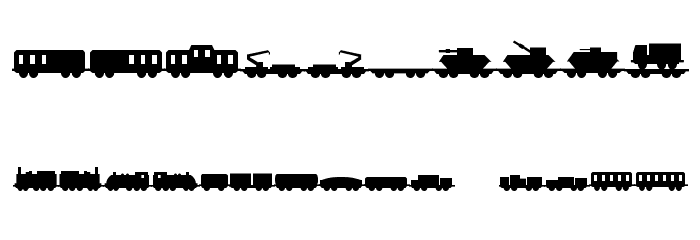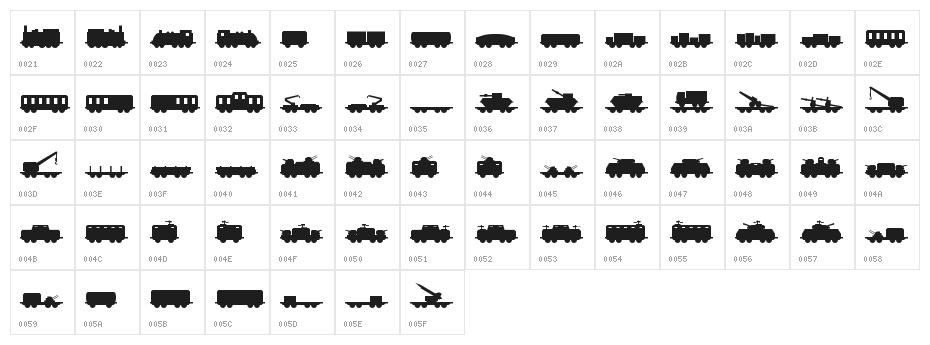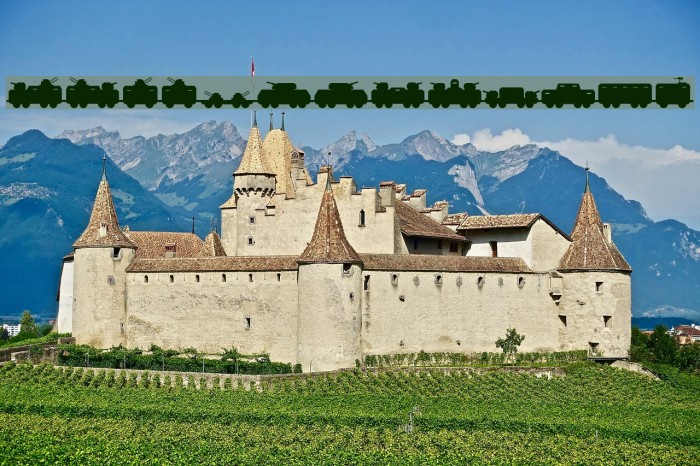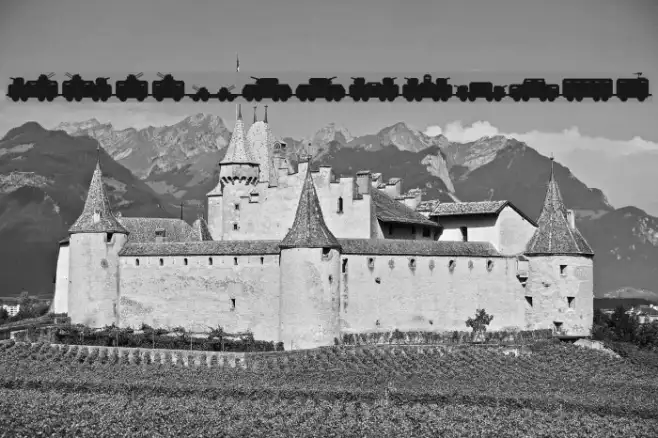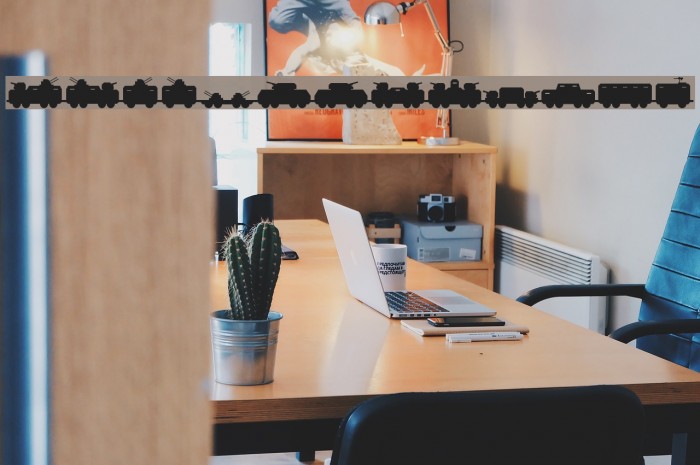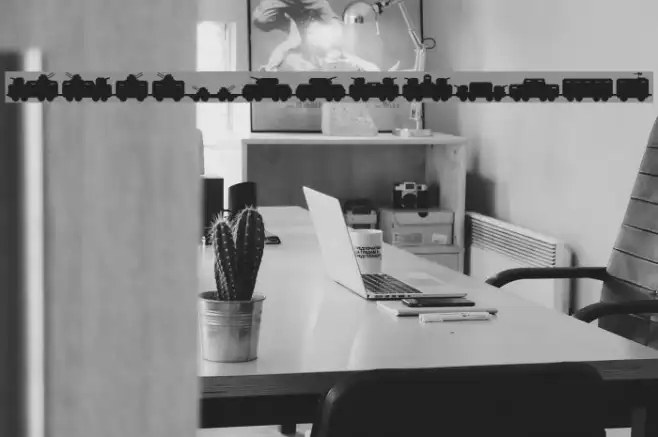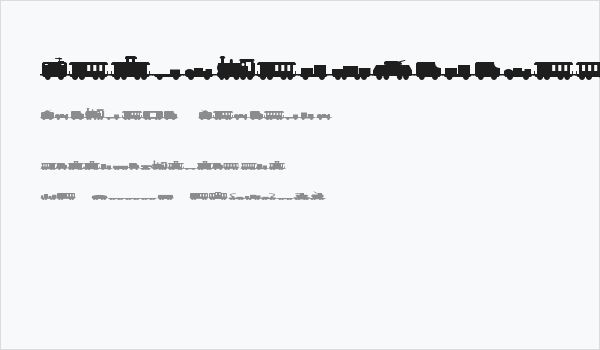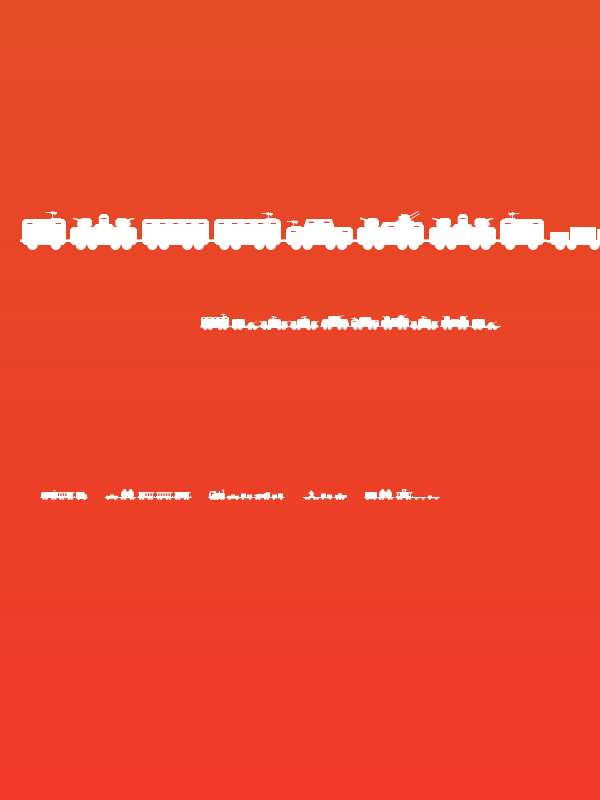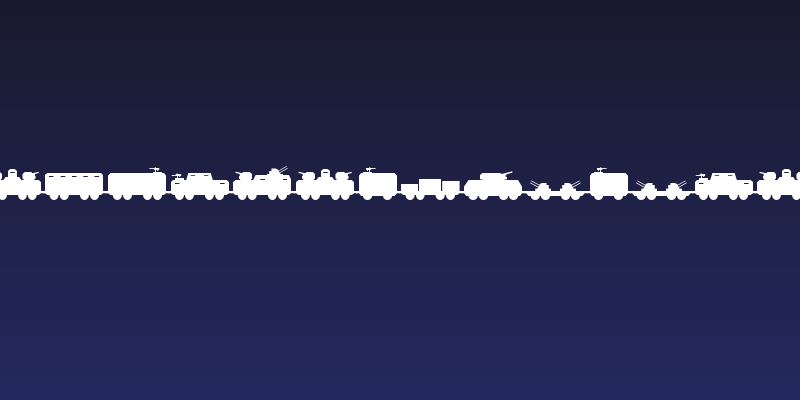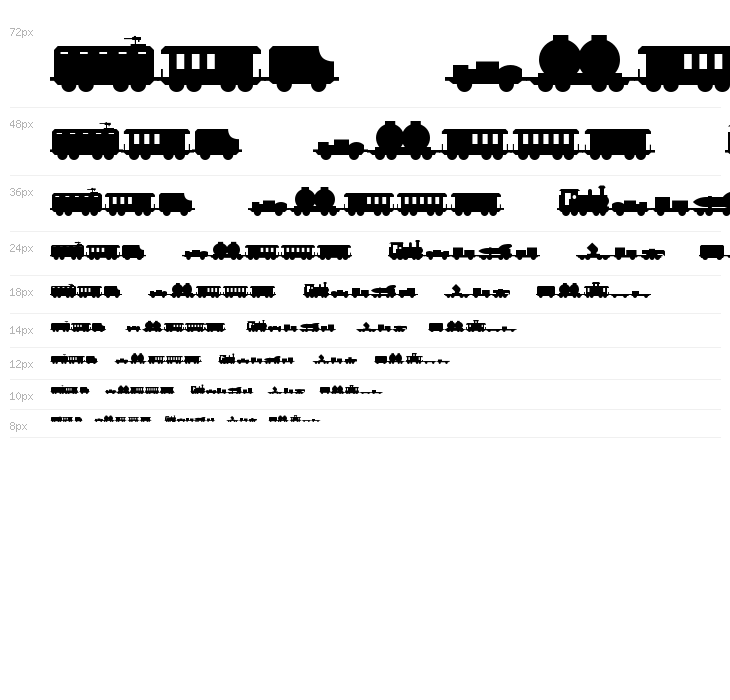
Miltrain-Generic Font
Miltrain-Generic Description
A collection of silhouette-style train and railcar illustrations, each character representing a different type of locomotive, carriage, or rail equipment in a bold, pictorial manner. The glyphs are highly decorative and not traditional alphanumeric forms.
| Overall Style | Decorative, Playful, Thematic |
| Use Case | Logos, Posters, Themed Graphics, Educational Materials |
| Proposed Projects | ChildrenΓ’β¬β’s books, transportation-themed posters, educational materials, novelty invitations, or playful branding. |